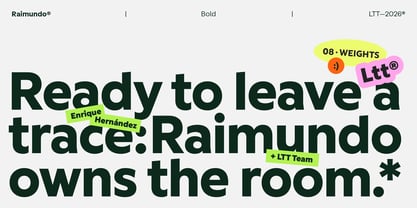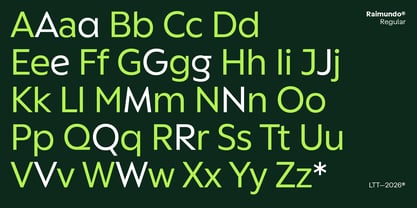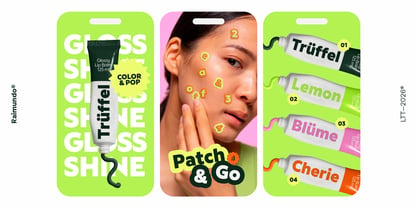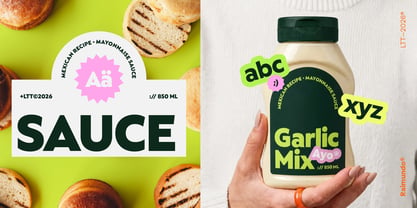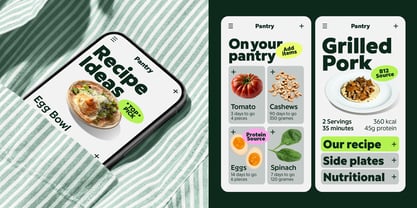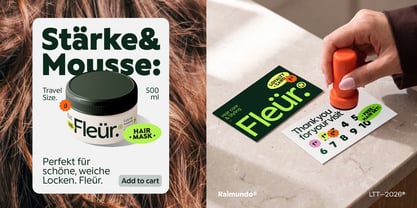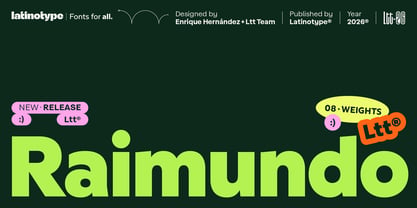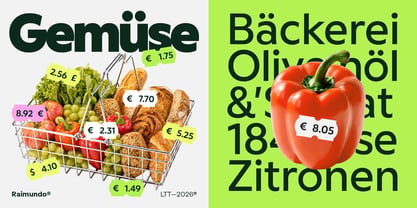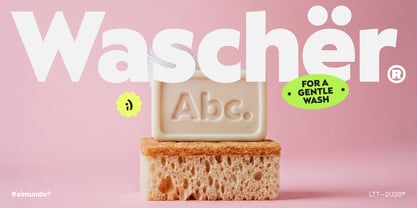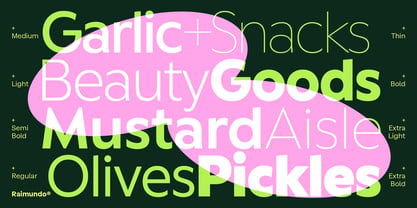
Raimundo
by Latinotype
The Raimundo Font Family was designed by Enrique Hernández, Latinotype Team and published by Latinotype. Raimundo contains 8 styles and family package options.
Raimundo is that friend who gives you straight advice with a pat on the back. A raspy, confident voice that always has a joke behind every line. You'll remember it fondly — and that's exactly what we want your brand to feel when you use it.
Eight weights from Thin to ExtraBold, each with enough personality to stand on its own. Its construction sits between geometric and grotesque: rounded forms with tension in the right places, open counters that hold up at small sizes, a weight range that goes from quiet to loud without breaking character. The alternate set covers a, e, and g — small shifts that move the tone from neutral to expressive. 541 glyphs including typographic emoticons that fit consumer-facing brands without feeling forced.
Raimundo was built for food retail, FMCG packaging, digital products, and brand identities that need to feel alive at every size. Not neutral. Not anonymous. The kind of typeface people recognize before they finish reading.
Ready to leave a trace.
Designers: Enrique Hernández, Latinotype Team
Foundry: Latinotype